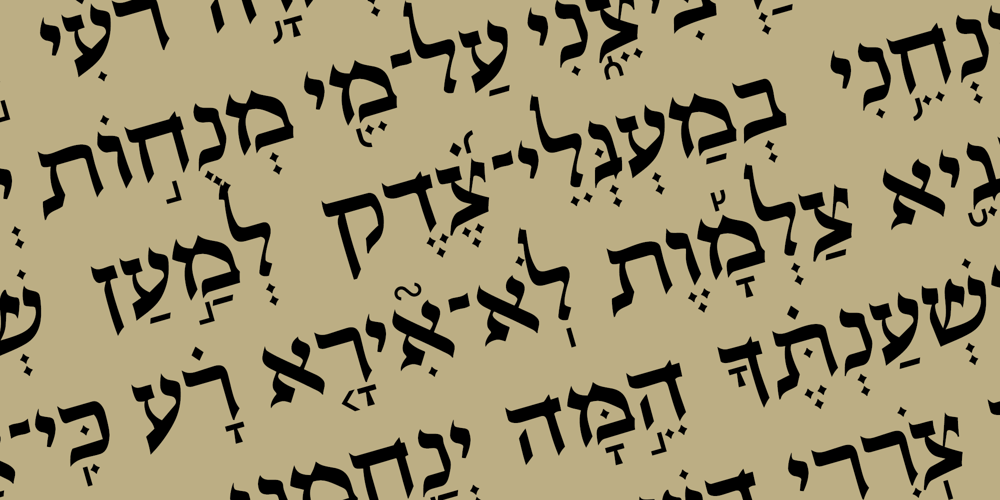
Hebrew Sevilha Tanach Font Family was designed by Sami Artur Mandelbaum and published by Samtype. Hebrew Sevilha Tanach contains 2 styles and family package options. This is Classic Hebrew Sefardi Font.This is a beautiful typeface to invitations, posters, cover books and small texts.All diacritic marks for vocalization are present (Nikud), including shevana, kamats katan, cholam chaser and dagesh hazak.